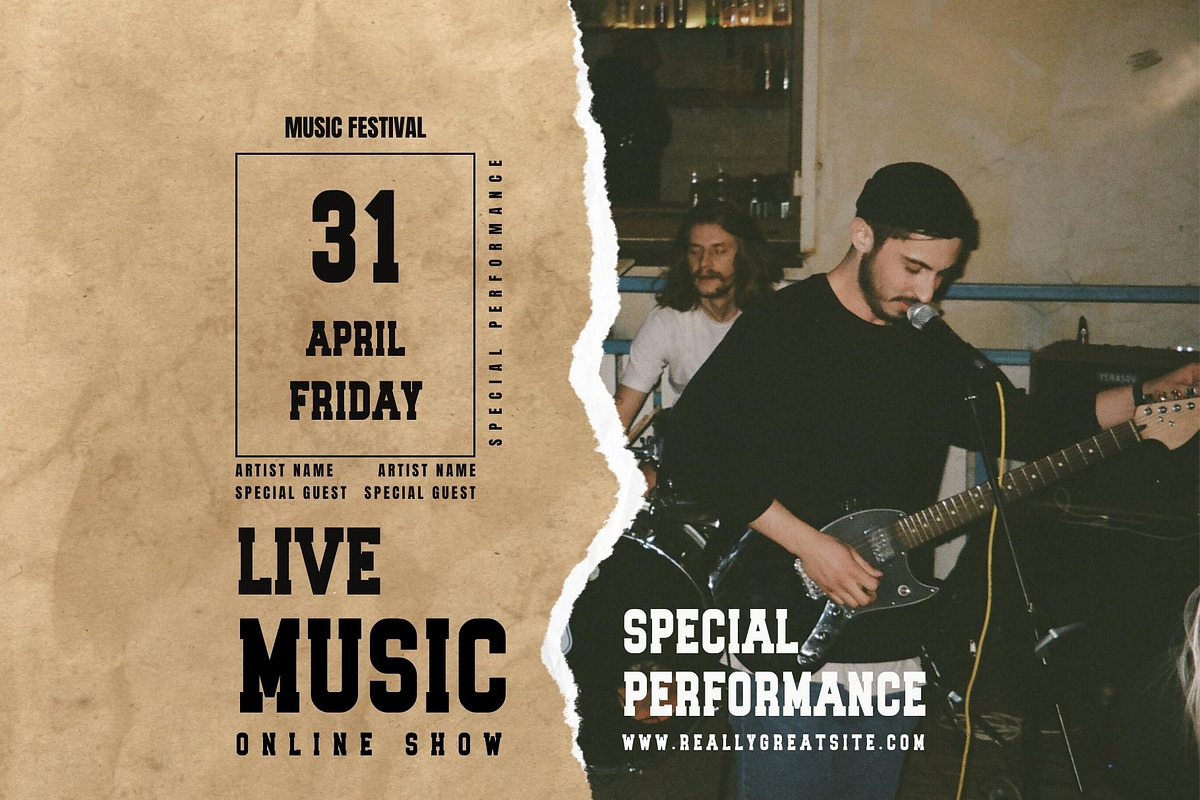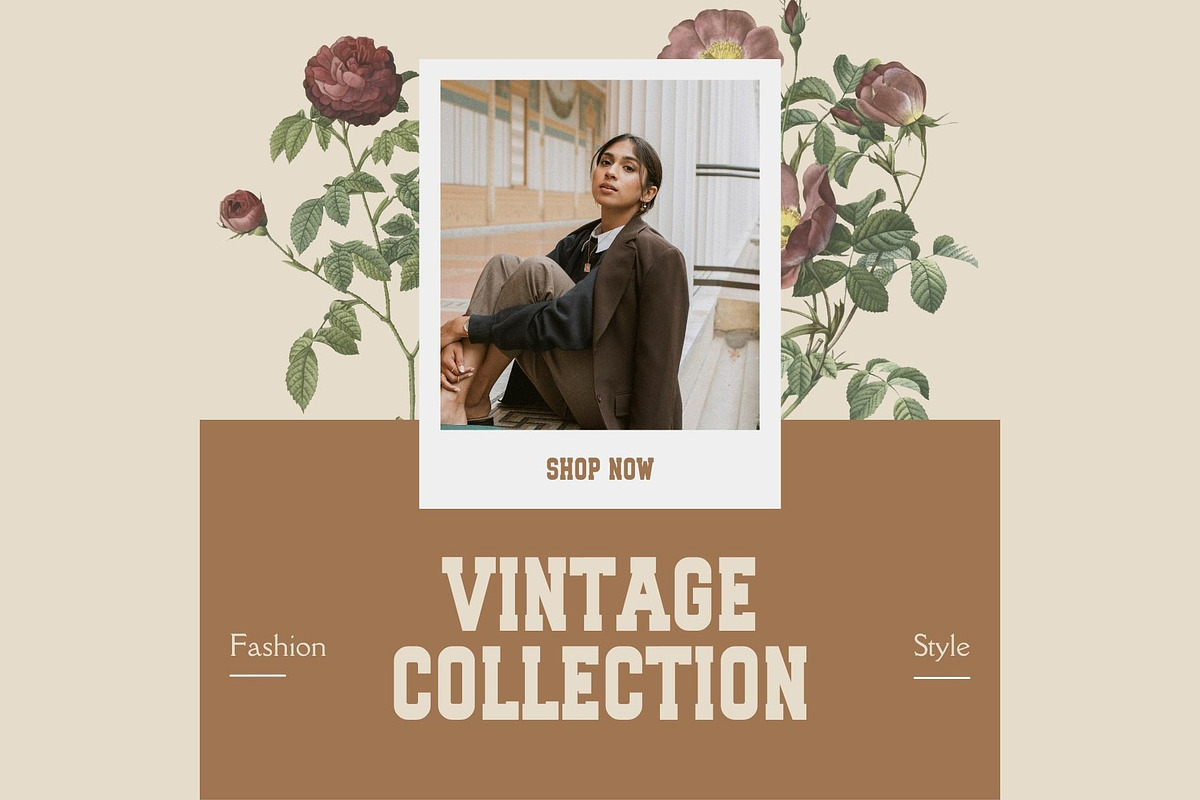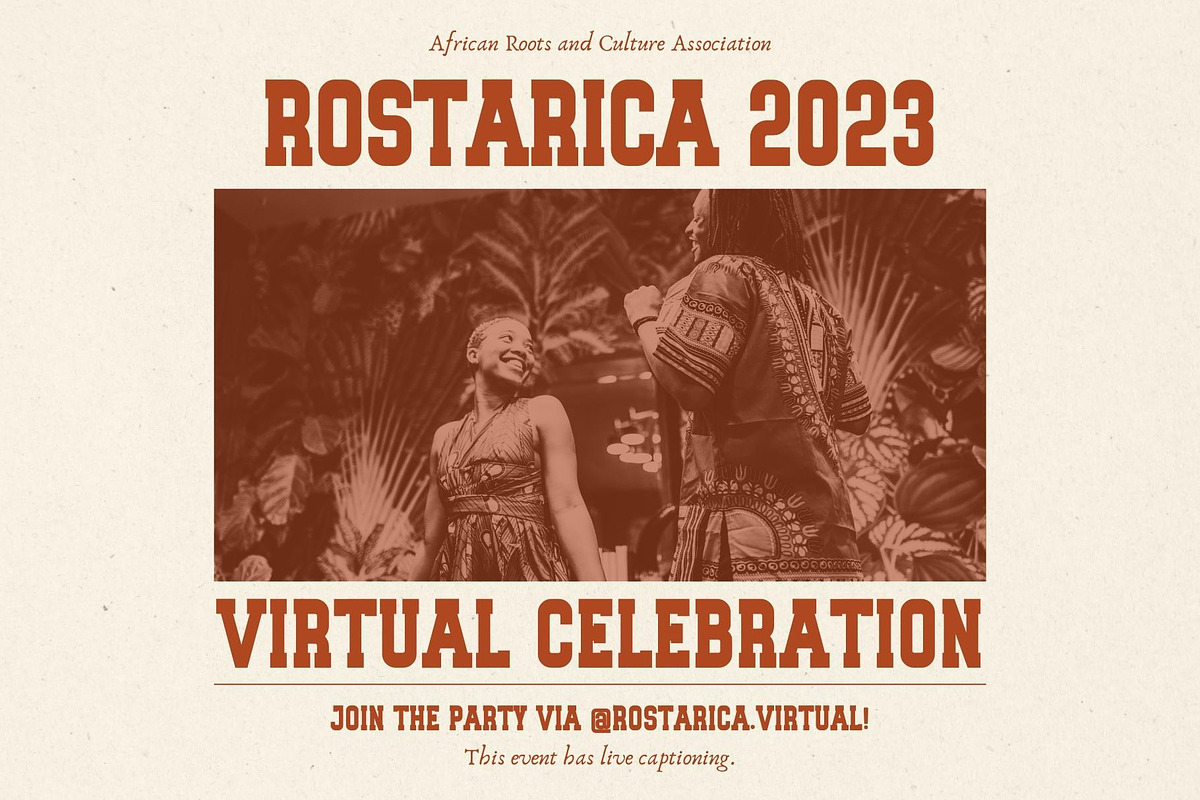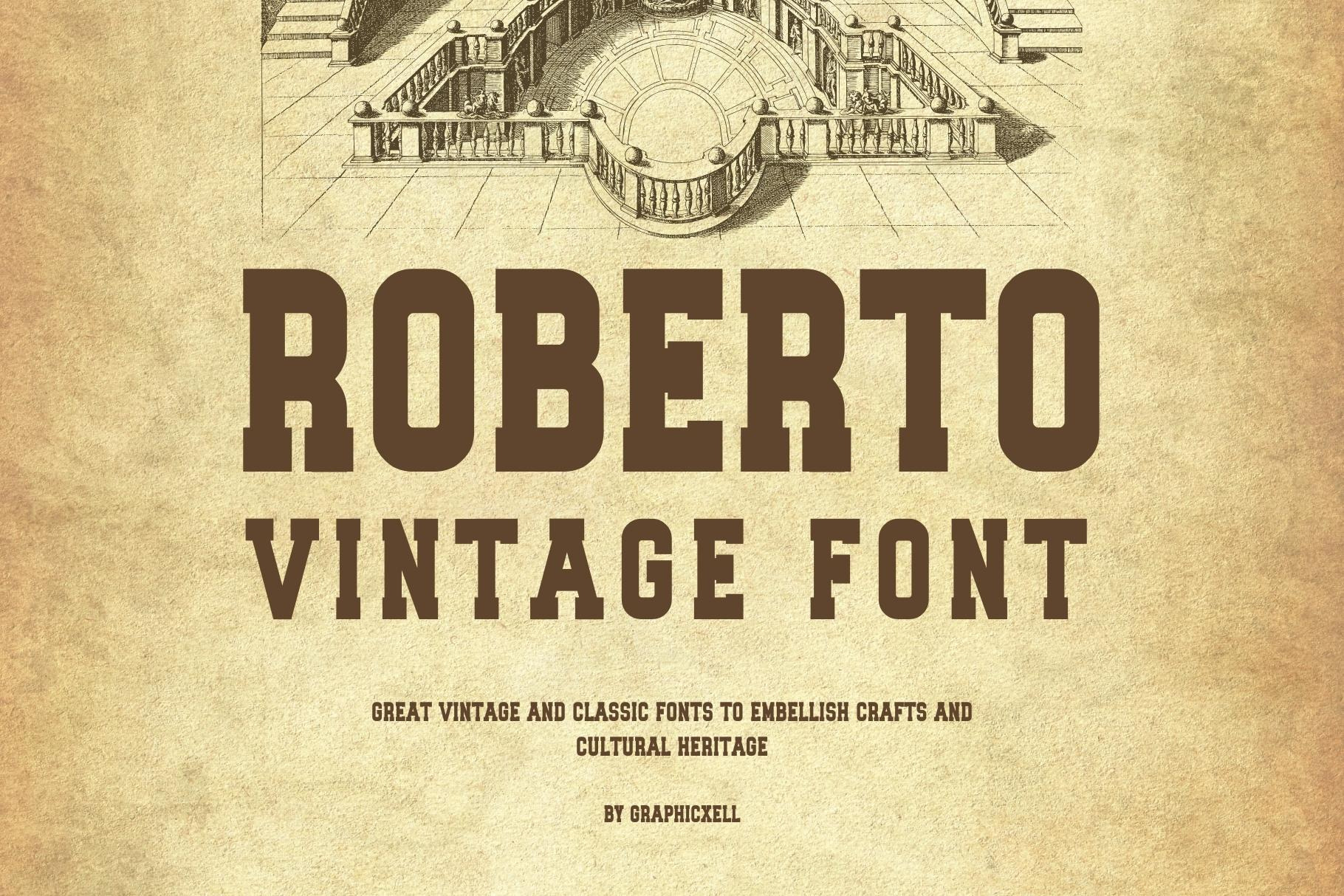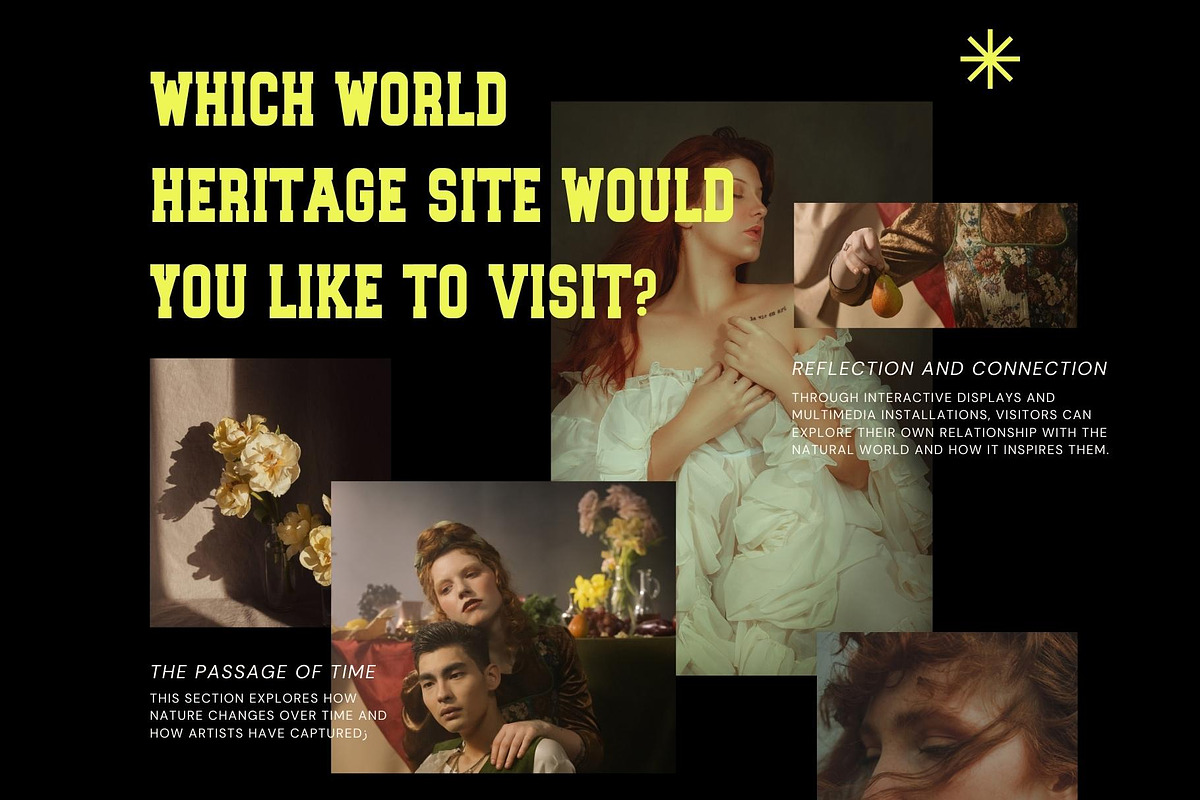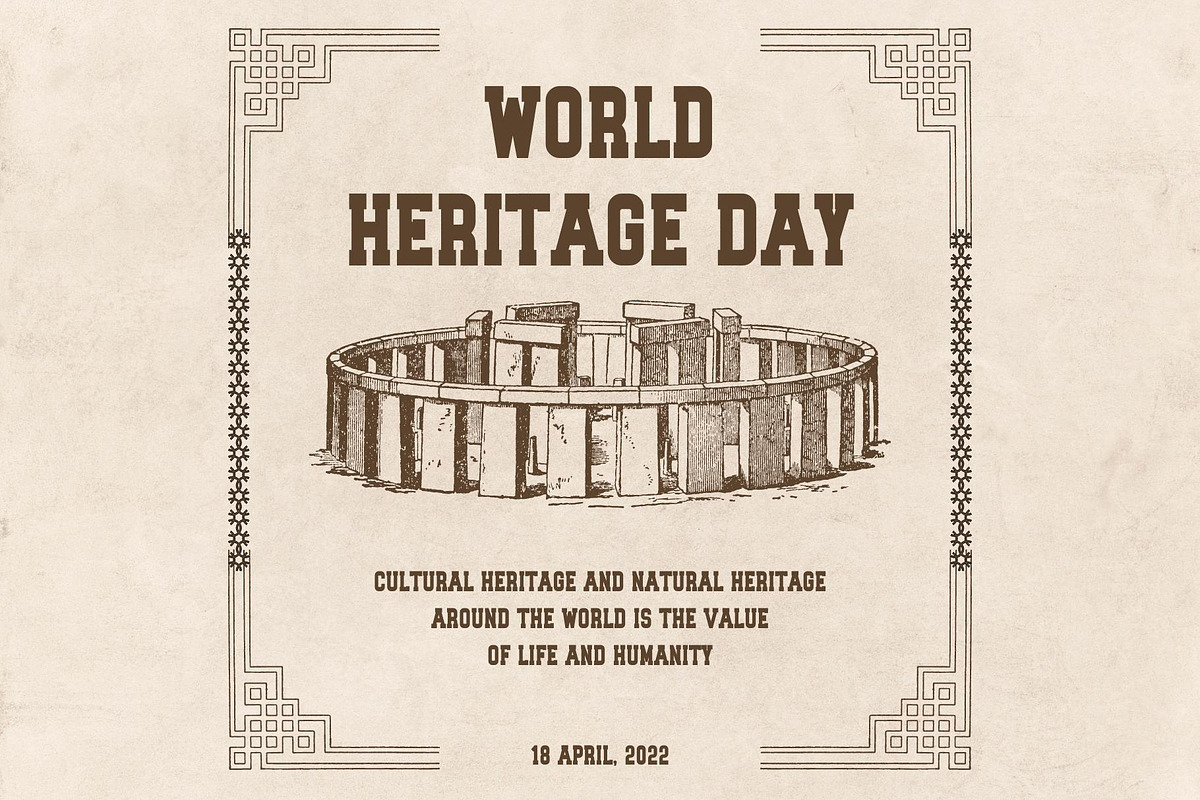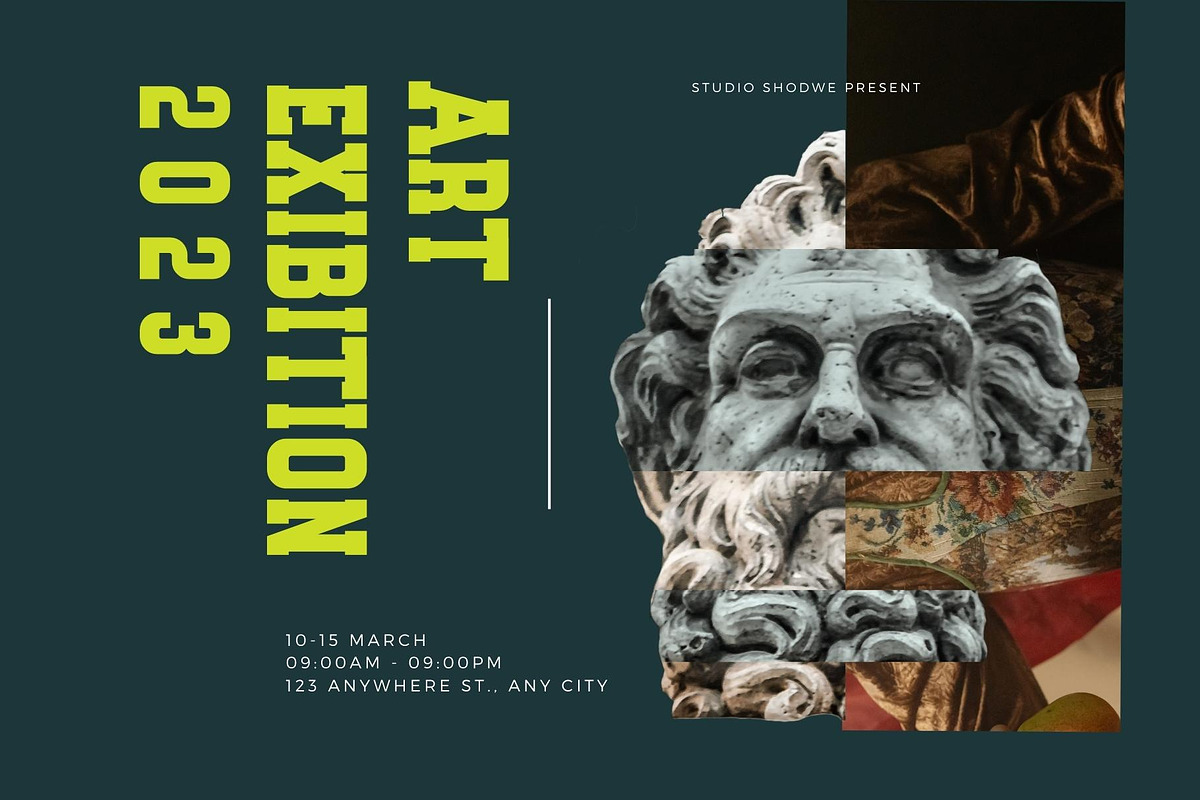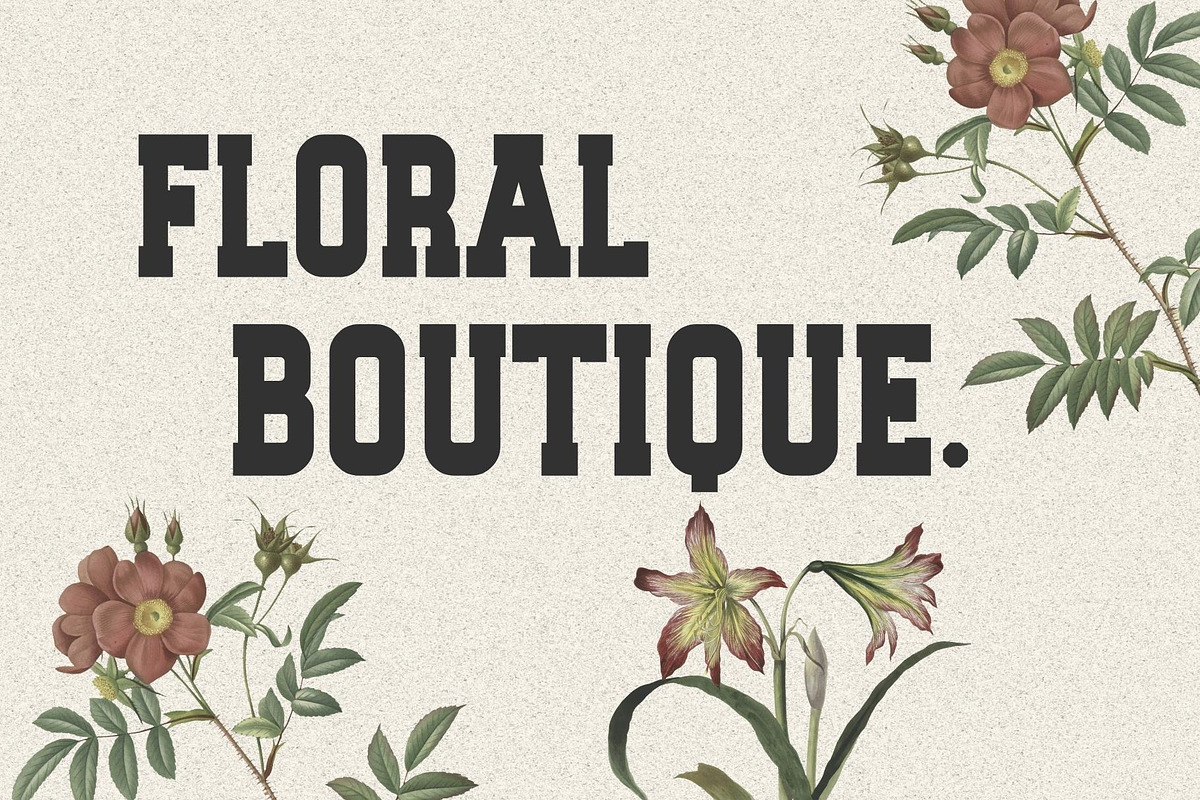
Roberto Vintage Slab Serif Font
Roberto Vintage Slab Serif Font Typeface inspired by the famous minimalist logo perfect for the purposes of designing templates, brochures, videos, advertising branding, logos, invitation, layout design, elegant crafting, beauty design and other